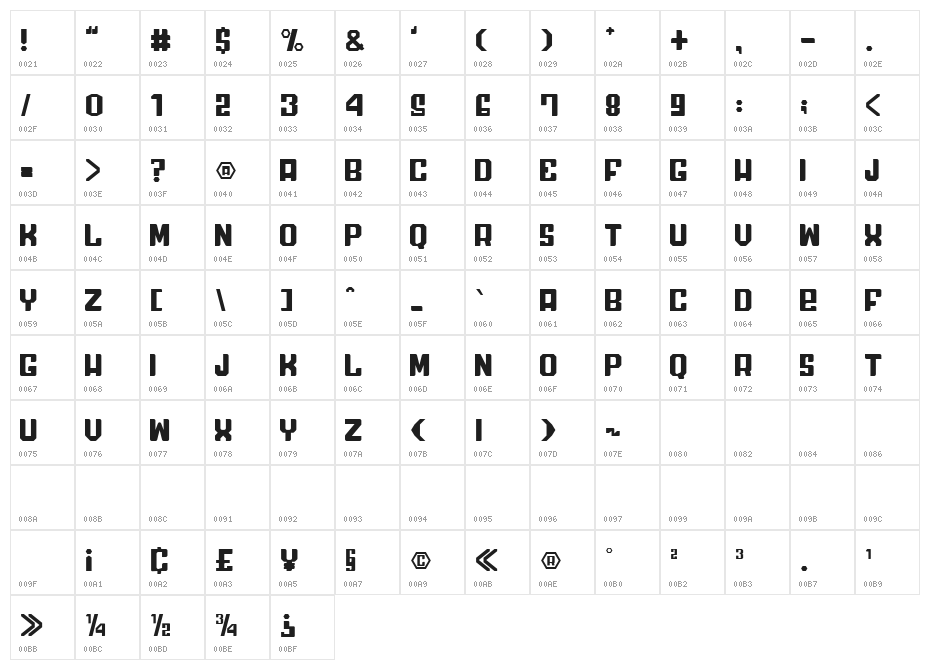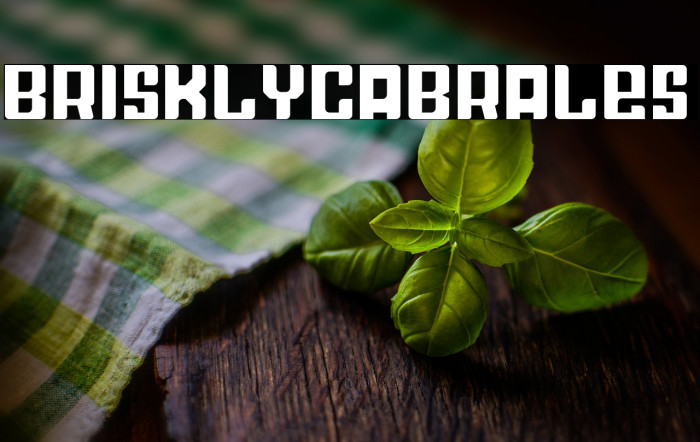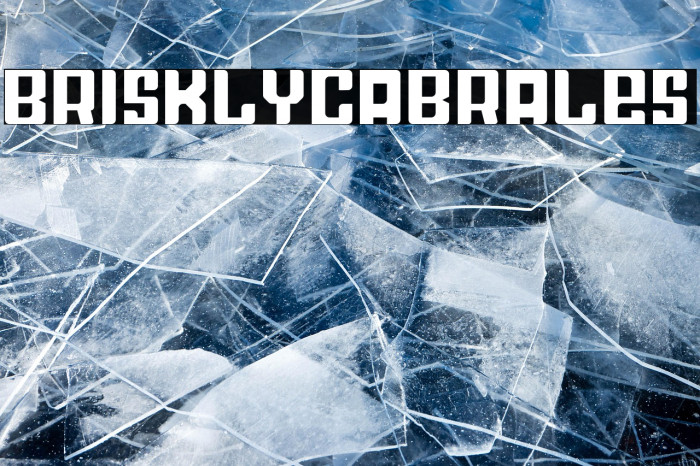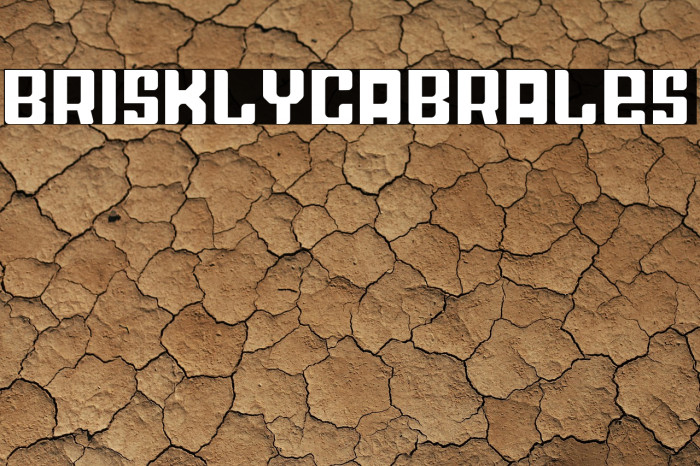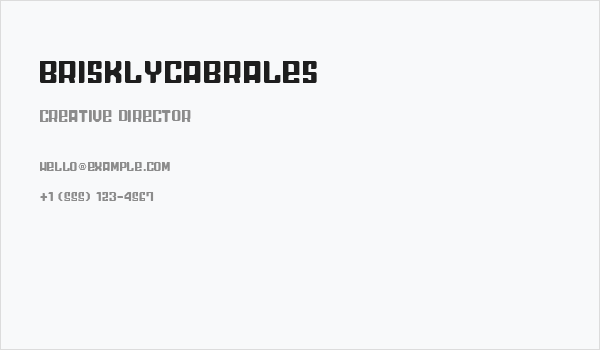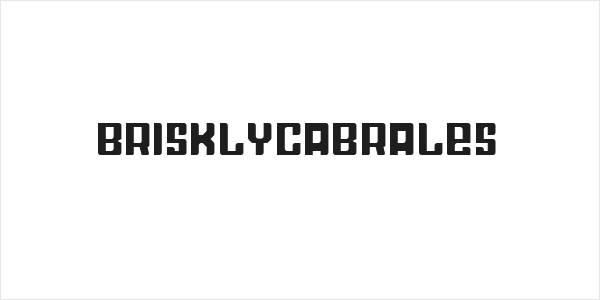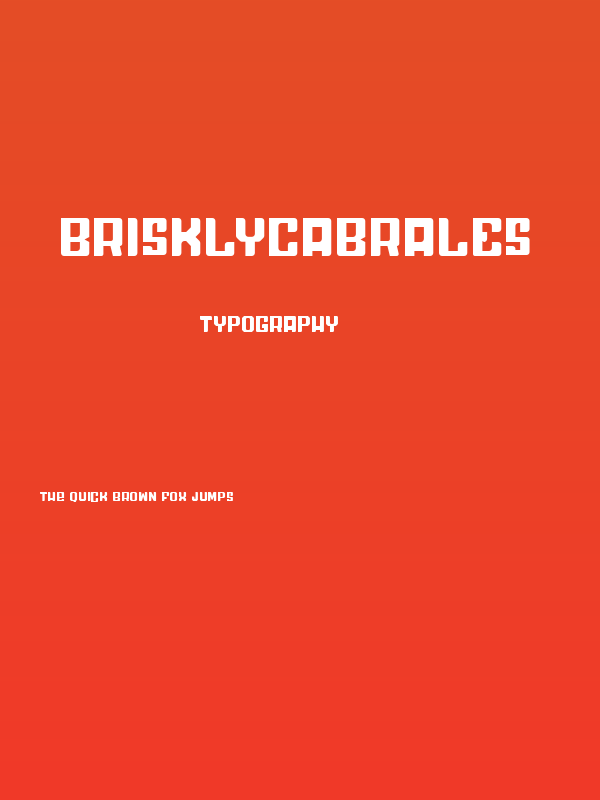
BrisklyCabrales Font
BrisklyCabrales Description
This font features a bold, geometric design with strong, angular lines and a modern aesthetic. The characters are blocky and robust, giving a sense of strength and stability. The uppercase and lowercase letters maintain a consistent width, contributing to a uniform appearance. The numerals and special characters are designed to match the boldness of the alphabet, ensuring a cohesive look across all text. This font is particularly suitable for projects that require a strong visual impact, such as posters, headlines, and branding materials.
| Proposed Projects | Ideal for posters, headlines, branding materials, and any design requiring a strong visual impact. |